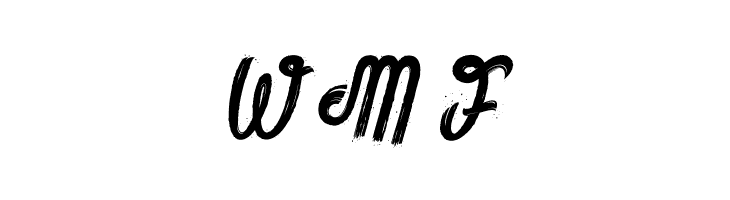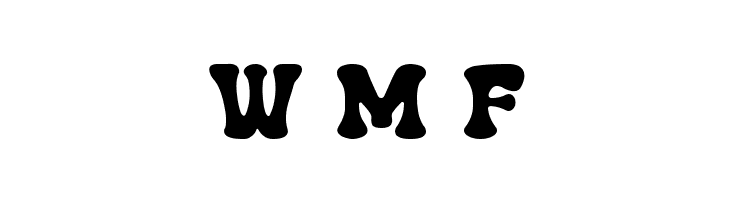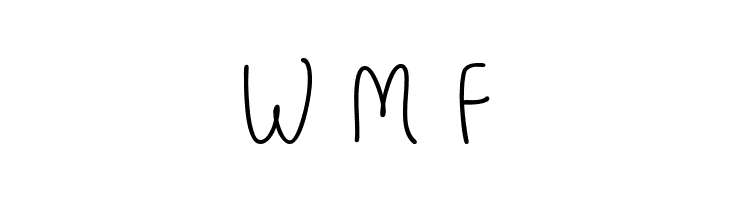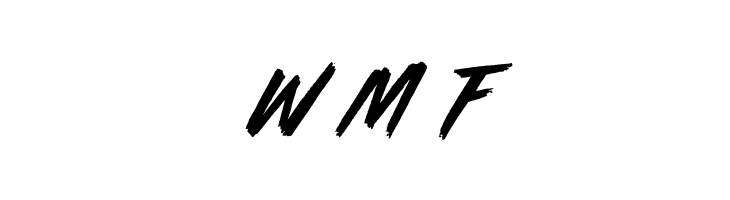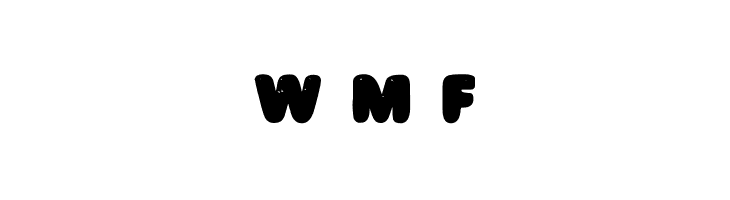
A bold, expressive script font with dynamic, flowing characters.
A bold, distressed font with a rugged, vintage appearance.
A playful, bold, hand-drawn font with a casual and friendly style.
A dynamic, handwritten font with elegant, sweeping strokes and artistic flair.
A cursive script font with elegant, flowing strokes and decorative flourishes.
A bold, playful font with rounded strokes and a whimsical, friendly appearance.
A playful handwritten font with a casual and friendly style.
A bold, flowing script font with a modern and artistic style.
A bold, brush-style script font with dynamic, hand-painted strokes.
A bold, rounded, and playful font with a vintage feel.